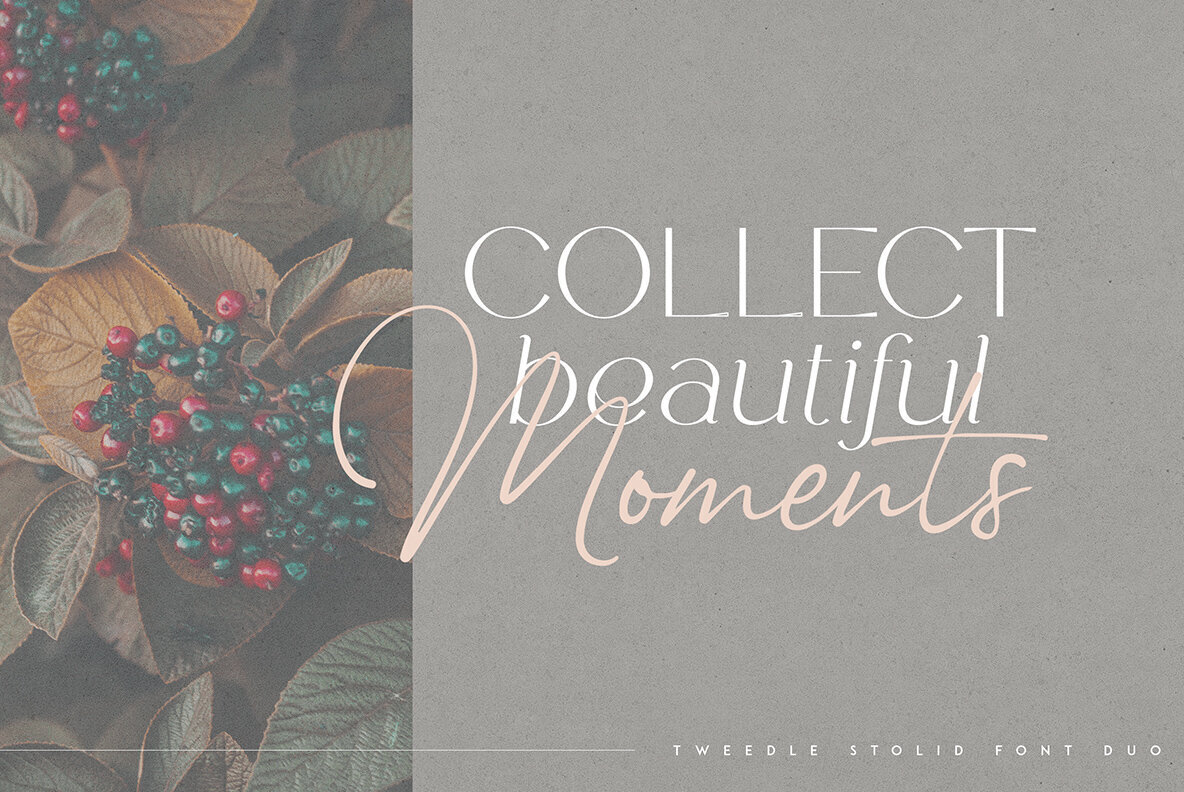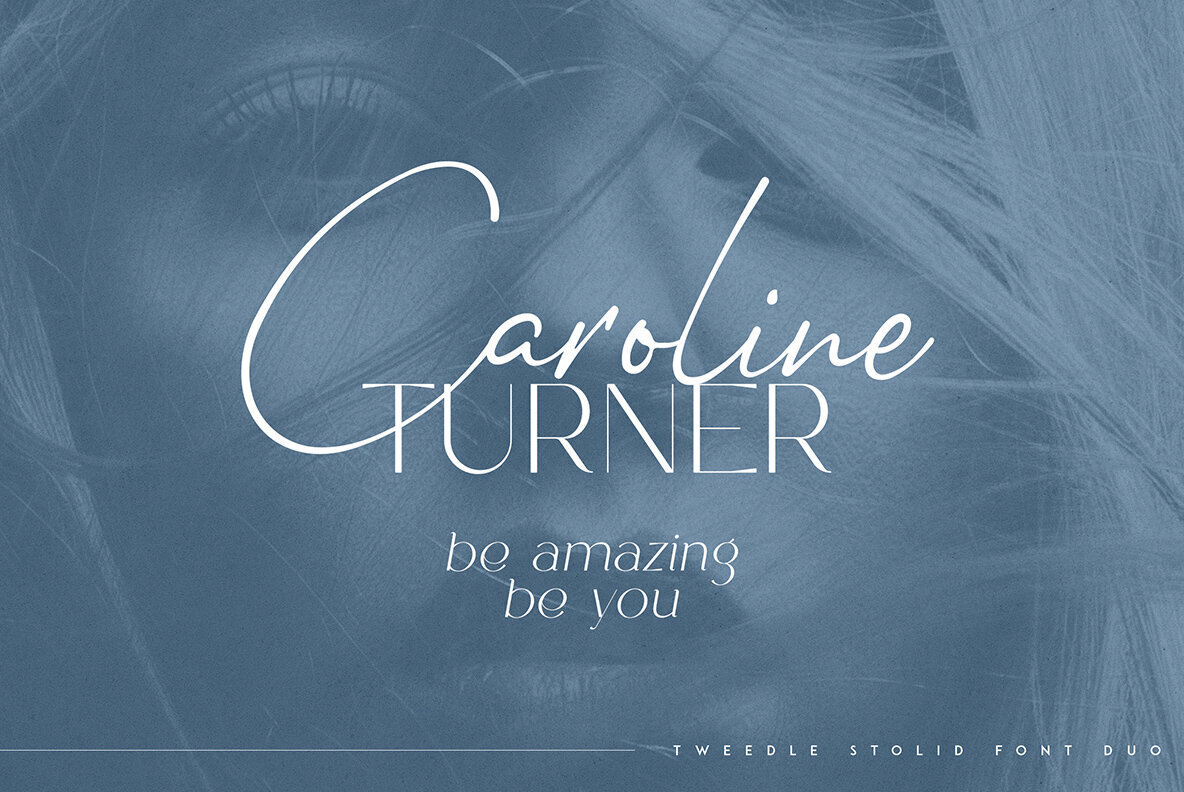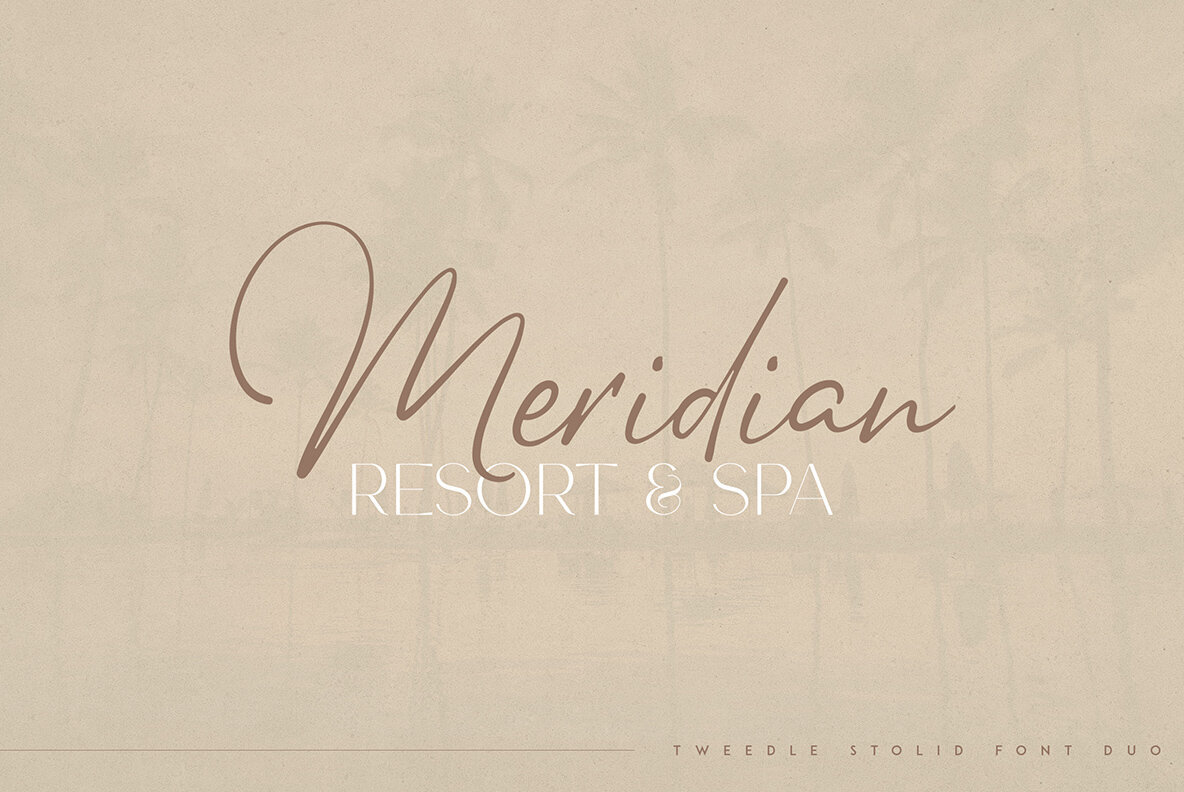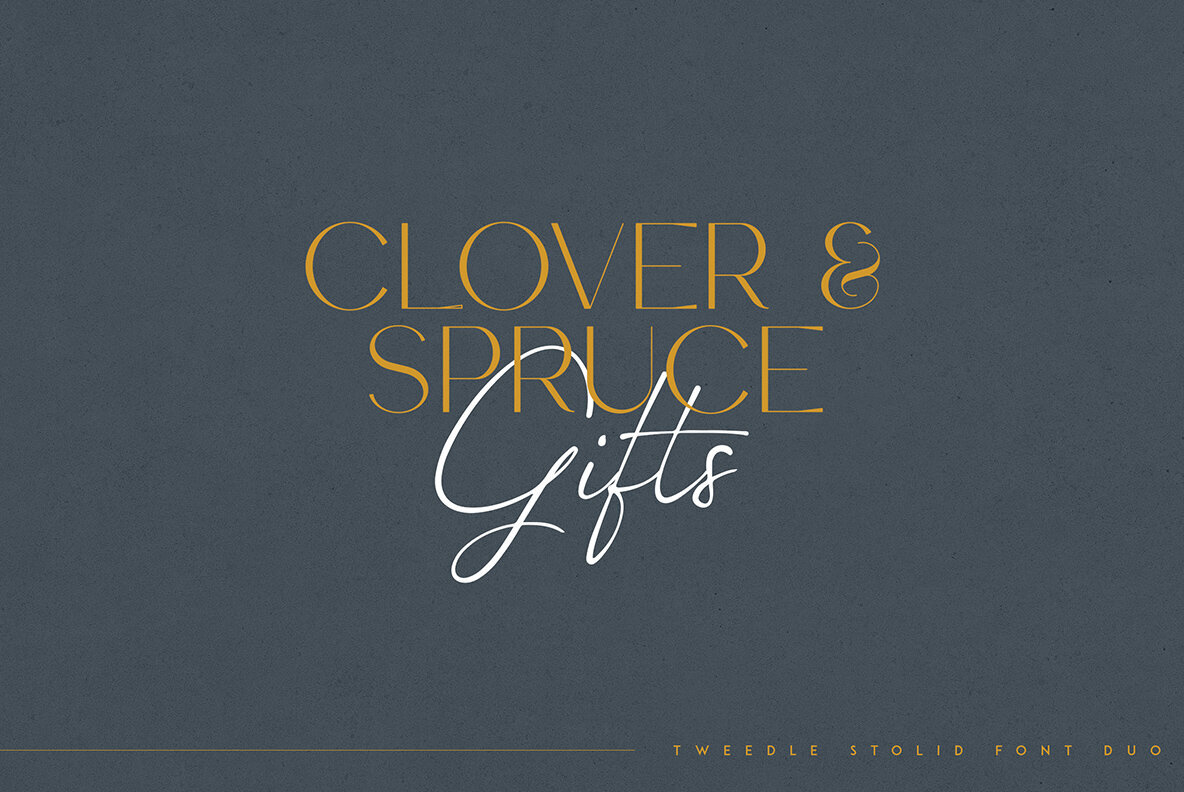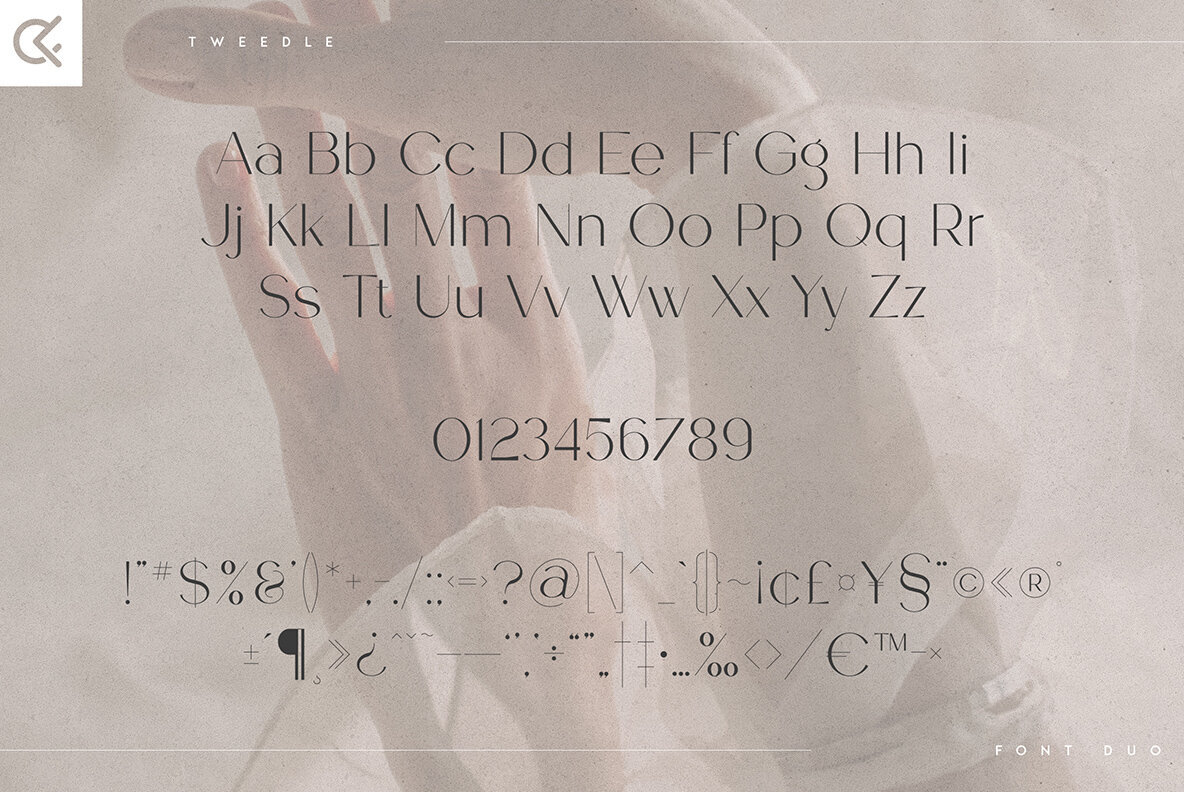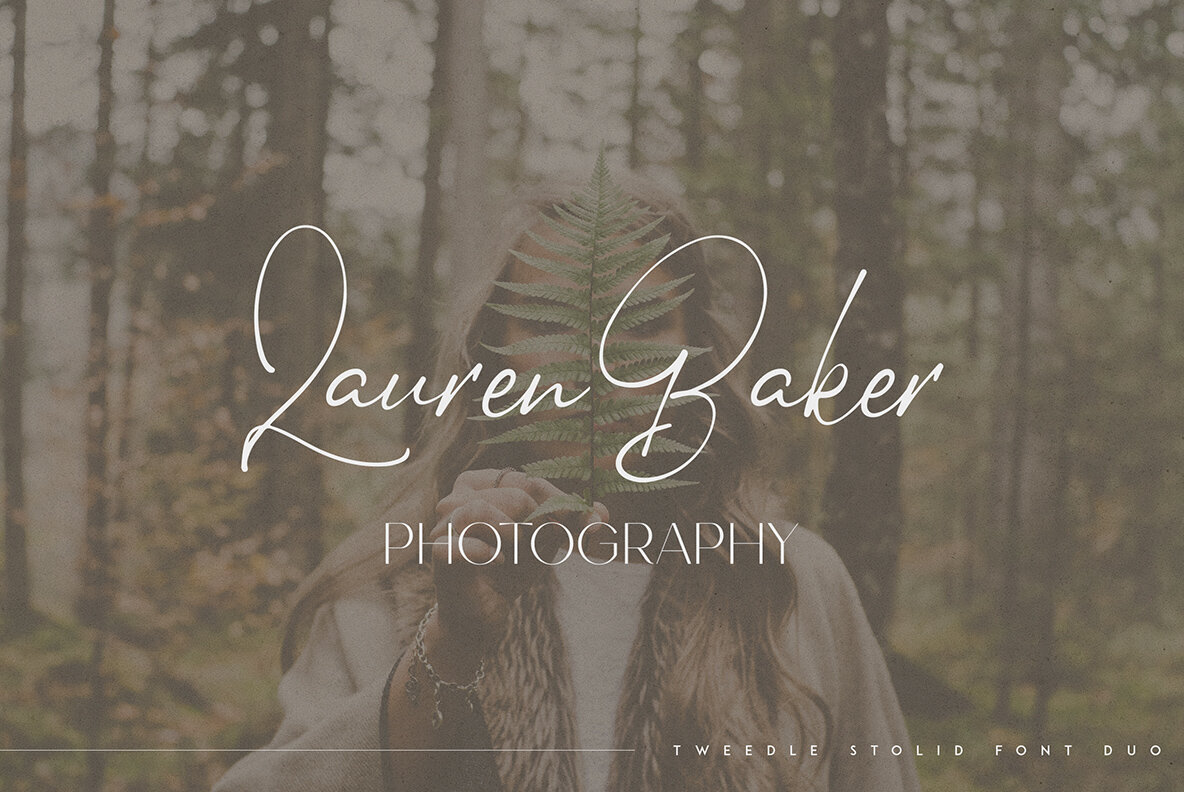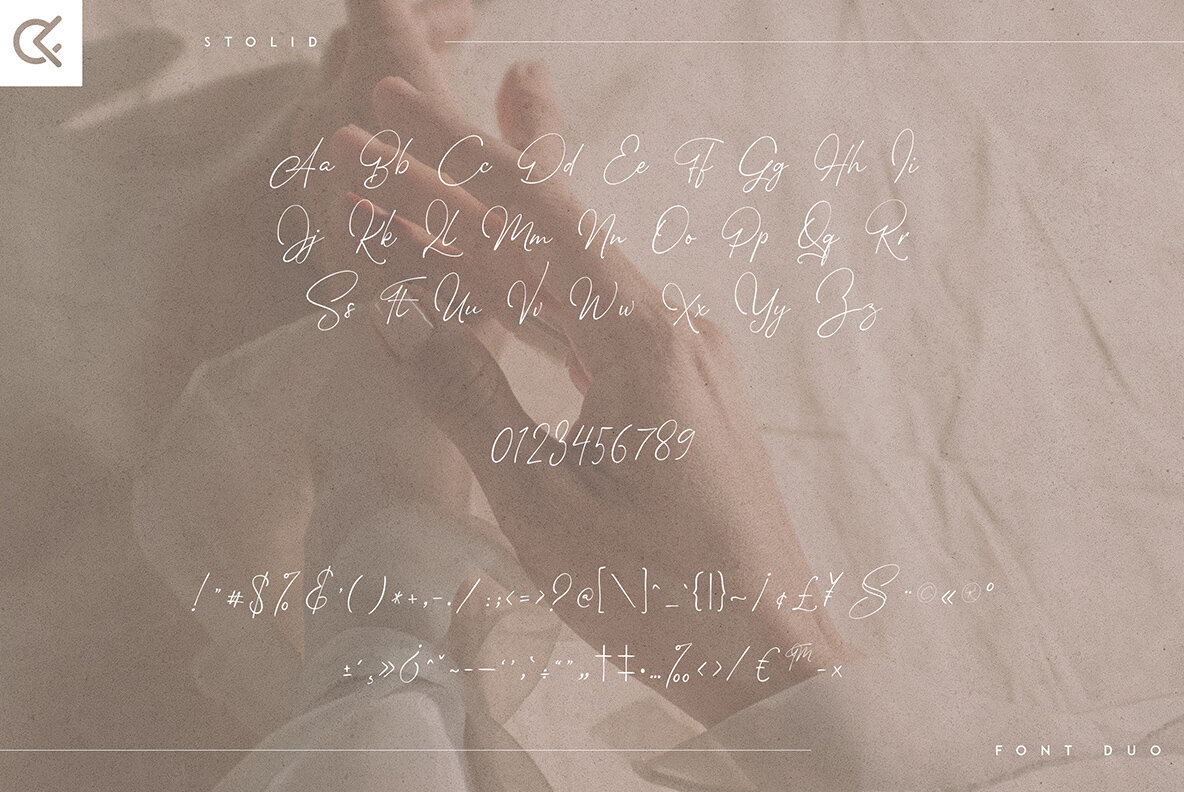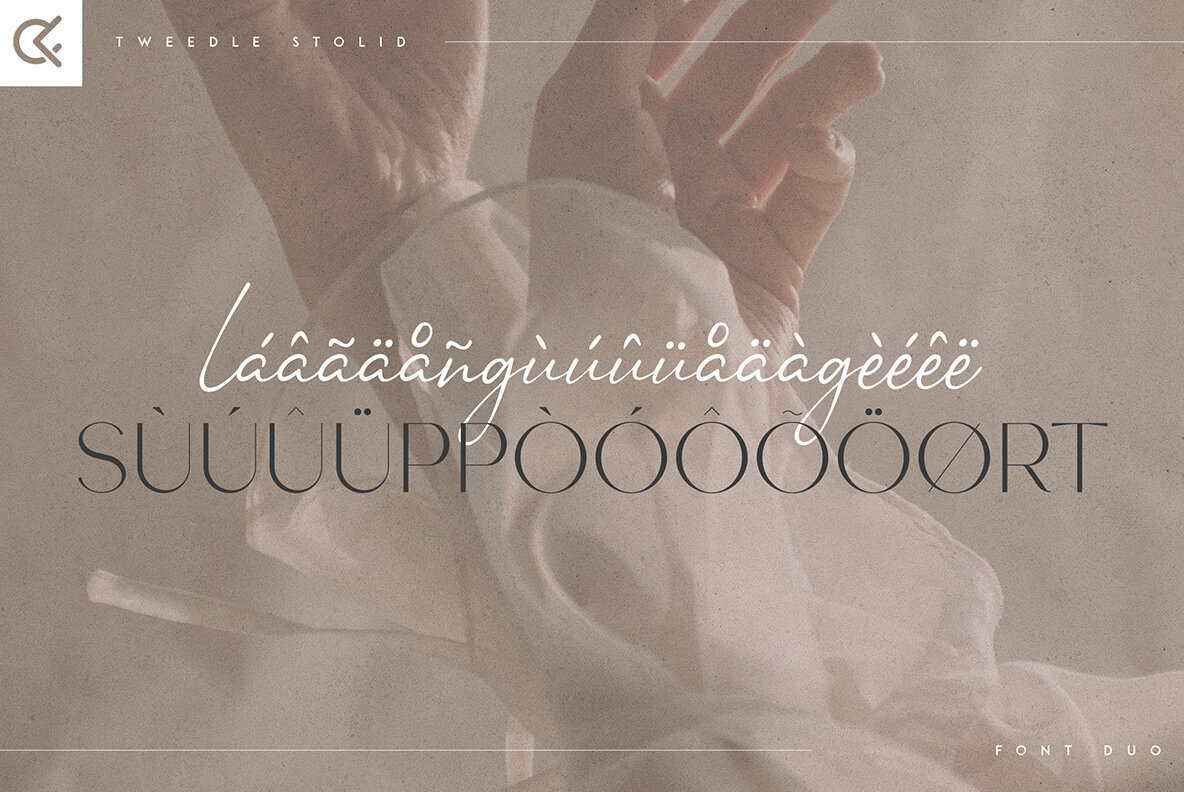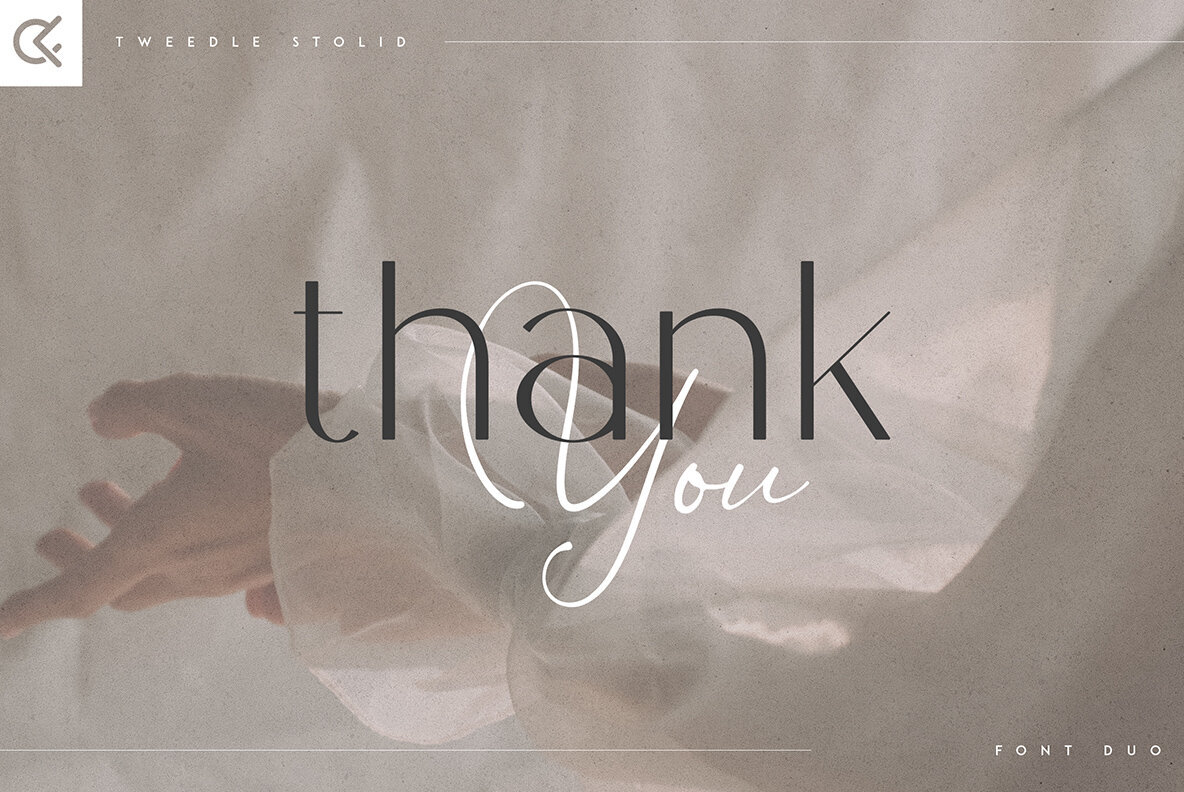
Tweedle and Stolid Font
Tweedle & Stolid is a modern font duo that brings together elegance and organic design, offering multilingual support for a wide array of applications. Versatile in both large and small sizes, this font duo is ideal for branding projects, home-ware designs, product packaging, magazine headers, or simply as a stylish text overlay on any background image. Key features include uppercase, lowercase, numeral, punctuation, and symbol characters, Regular, Alternate, Italic, and Script styles, as well as multilingual support. There is no need for special software to type out the standard characters of the Typeface, and it is Canva friendly for added convenience.